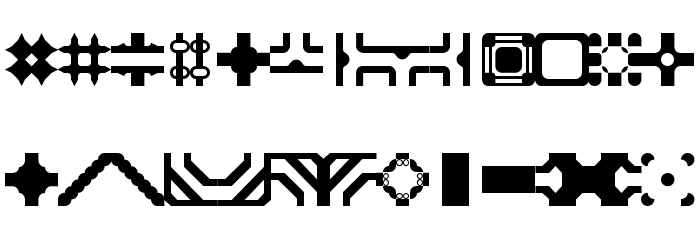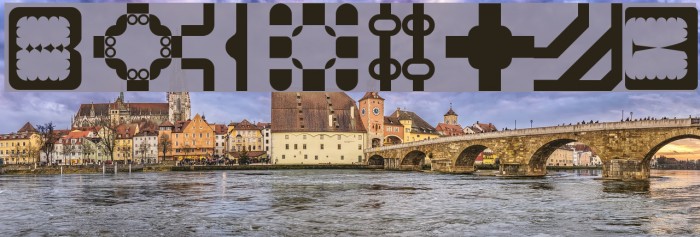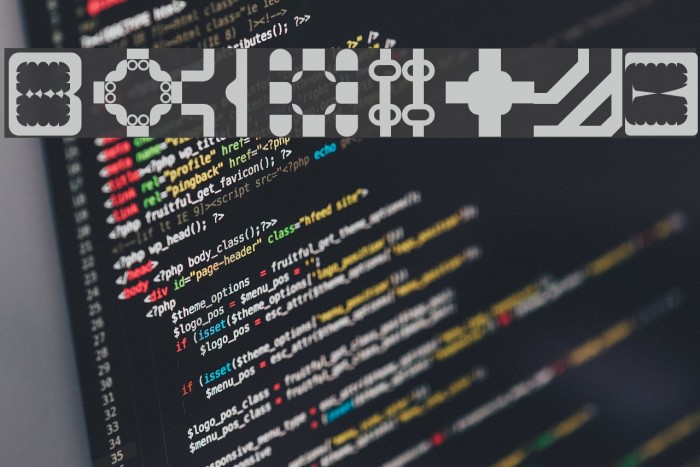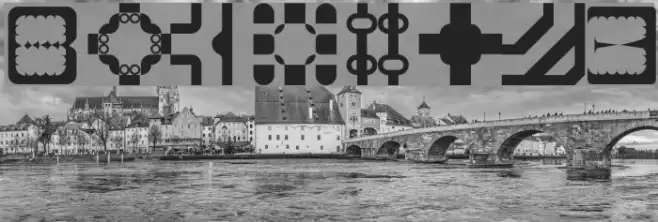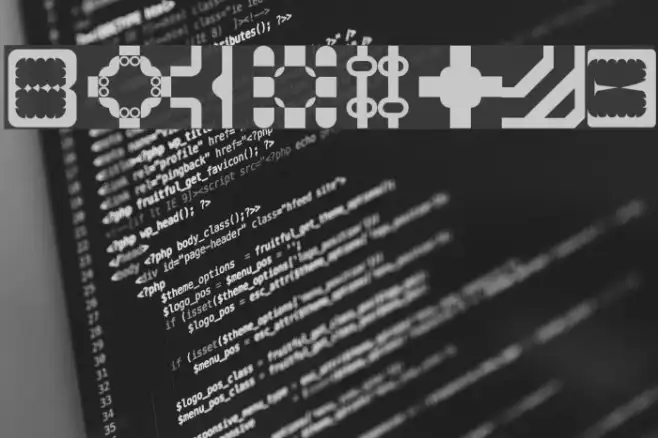
Builder3 Font
This font features a bold and geometric design with a distinct industrial and futuristic aesthetic. The characters are constructed with sharp angles and unique cut-out patterns, giving them a mechanical and robust appearance. The uppercase letters are particularly striking, with intricate detailing that suggests a sense of movement and complexity. The numbers and special characters continue this theme, incorporating similar geometric elements and bold lines. This font's unique style makes it ideal for projects that require a modern and edgy look.
A bold, geometric font with an industrial and futuristic design.
- Proposed Projects: Ideal for technology branding, sci-fi movie posters, video game titles, and industrial-themed graphic design projects.
- Overall Style: Futuristic, Industrial